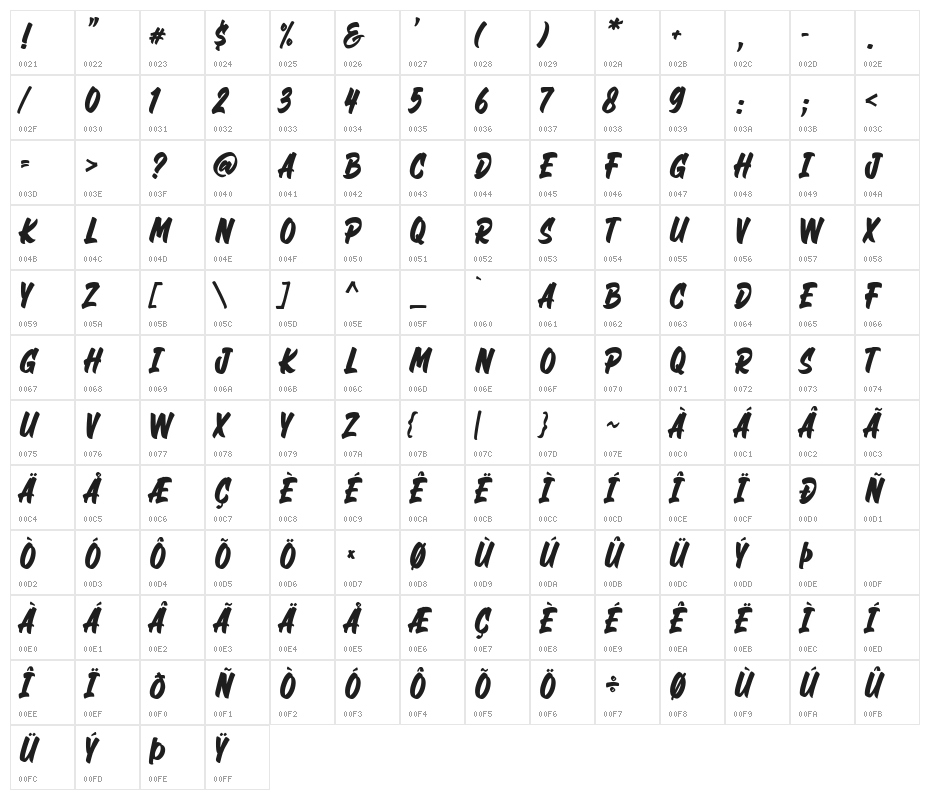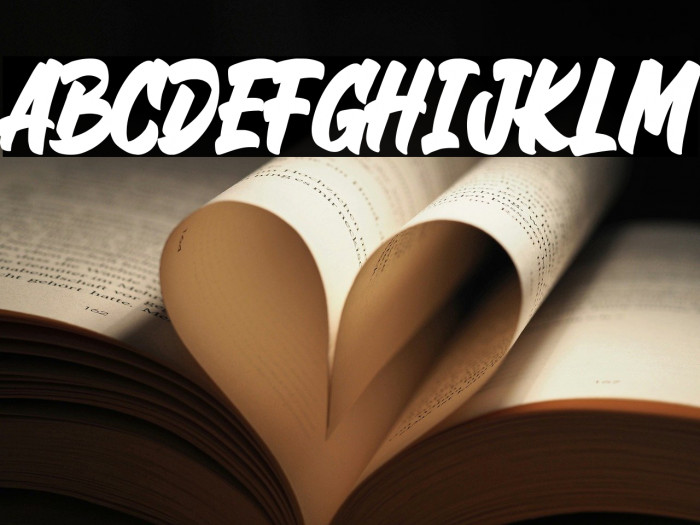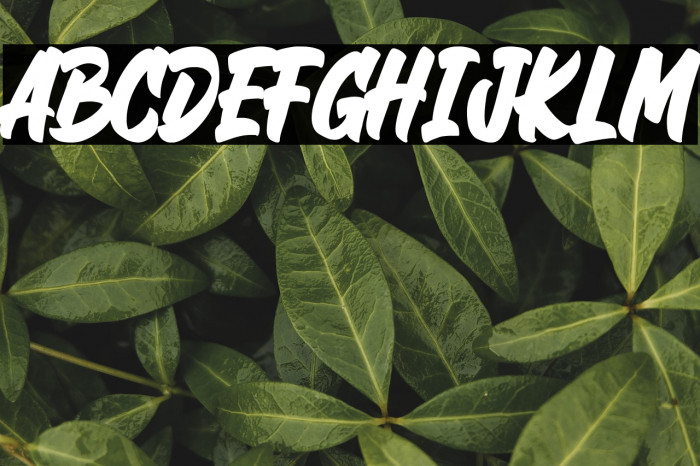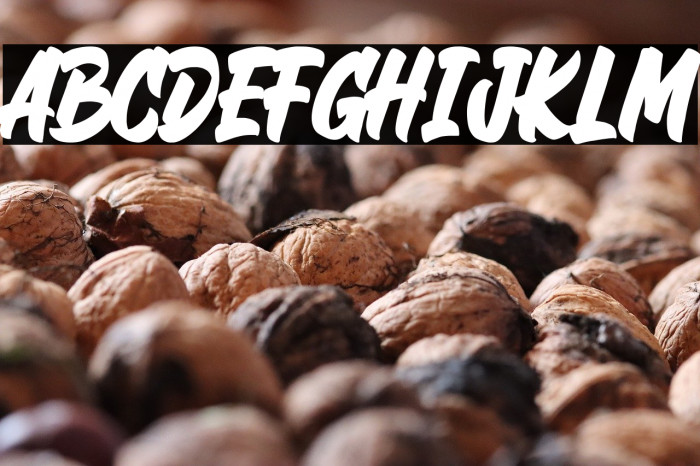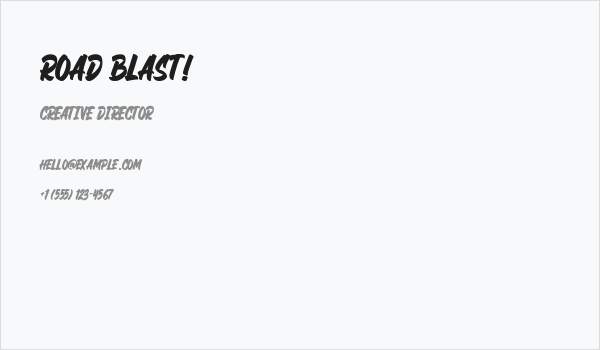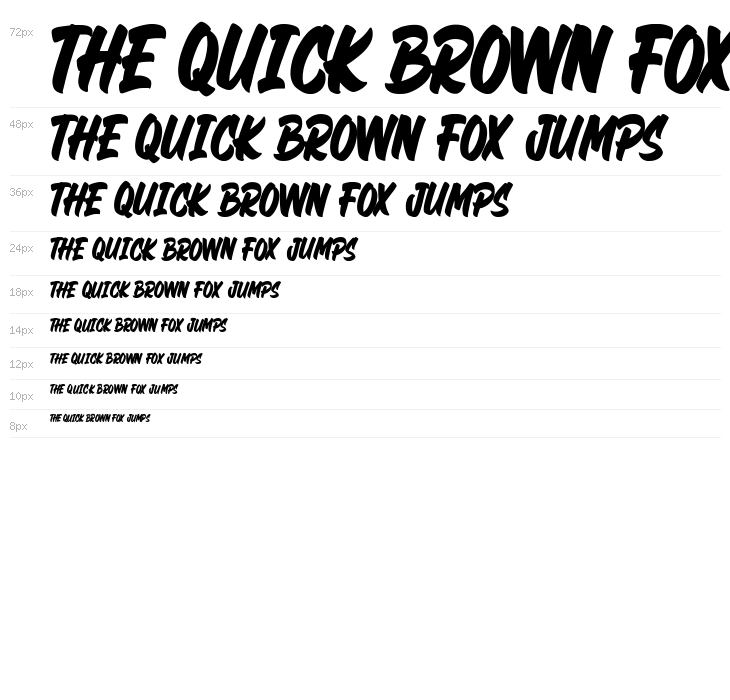
Road Blast! Font
Road Blast! Description
This font features a bold and energetic script style, characterized by thick, sweeping strokes that convey a sense of motion and dynamism. The letters are closely connected, creating a fluid and cohesive appearance. The uppercase and lowercase letters maintain a consistent style, with rounded edges and a slight slant that adds to the overall sense of movement. The numerals and special characters are designed to match the boldness and fluidity of the alphabet, making the font versatile for various uses. Its striking appearance makes it ideal for attention-grabbing designs.